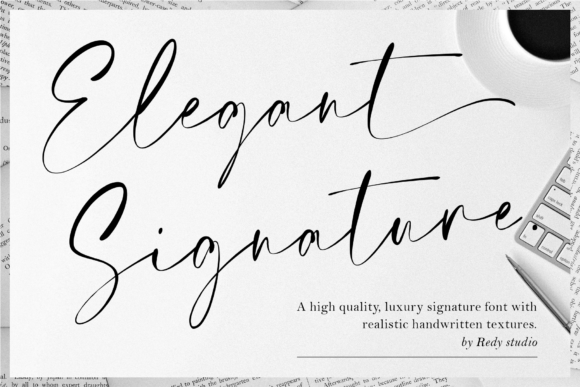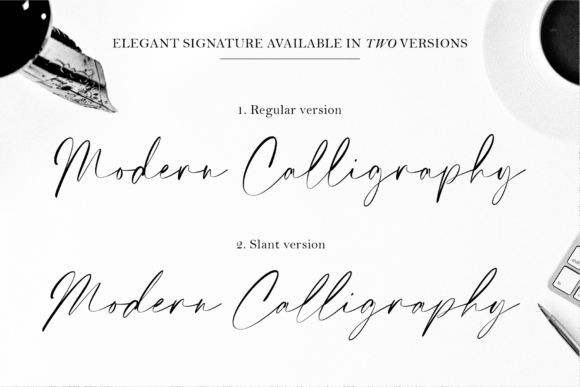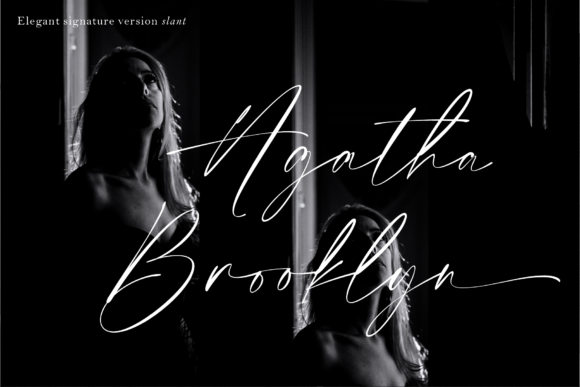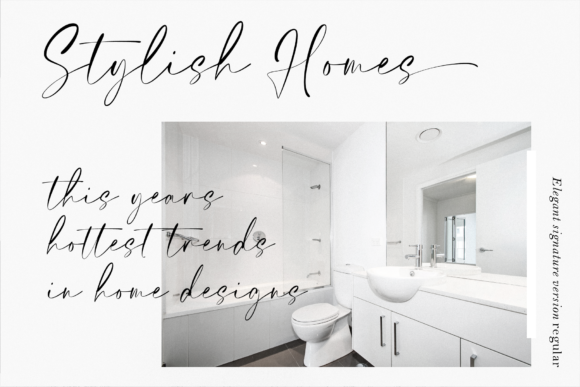
Elegant Signature Font: Perfect Script for Wedding Invitations
About the Elegant Signature Font
Crafted with precision, the Elegant Signature Font is ready to bring your ideas to life. Elegant Signature is a refined and incredibly distinct script font. Relaxed and stylish, this font will instantly elevate each of your designs. This font is PUA encoded which means you can access all of the glyphs and swashes with ease!
Elegant Signature thrives in applications requiring a touch of sophistication and personality. It excels in logo design, short headlines, invitations, and branding materials where its refined curves and distinct letterforms make a statement. Avoid using it for large blocks of body text or UI elements; its script nature hinders readability in extended passages.
Pairings should complement its elegant yet relaxed feel. Consider a clean sans-serif like Lato or Open Sans for a modern contrast, or a classic serif such as Garamond or Playfair Display for a more traditional balance. For a touch of playful modernity, a geometric sans-serif like Montserrat could also work well.
Its core personality is sophisticated yet approachable; elegant but not overly formal. It projects a sense of understated luxury and stylish confidence, making it ideal for brands aiming for a premium, refined image.
Elegant Signature Font Usage Examples
Elegant Signature Font Example